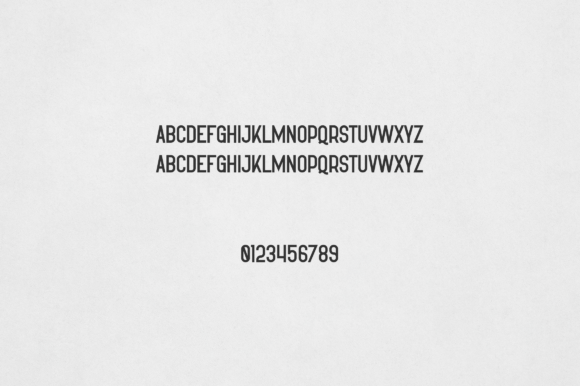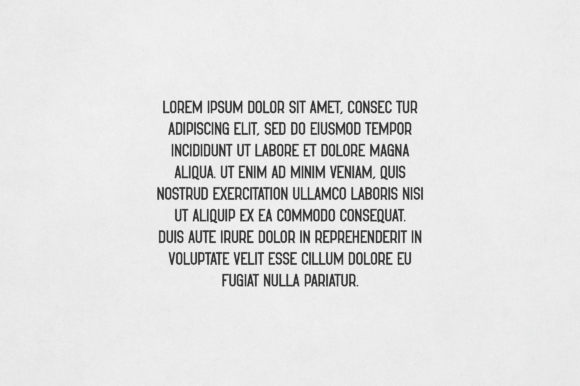
Introduction to Miley Font
Have you ever been stuck in a creative rut, scrolling through your design resources, searching for that one font that makes your project truly pop? I know I have. It’s that moment when you’re staring at a blank canvas, and all you need is the right typography to bring your idea to life. For designers, finding the perfect font can be a game-changer, and that’s exactly what we’re about to explore with the enchanting Miley Font.
As a versatile and elegant sans serif font, Miley Font is the perfect design resource for any creative project. Whether you’re working on branding, home-ware designs, product packaging, or magazine headers, this font is sure to make your typography truly unique. With its high quality and transparent background, Miley Font is a valuable addition to any designer’s toolkit.
Miley Font
- High-quality design resource ideal for creative projects, offering a modern and elegant aesthetic.
- Unique characteristics include a distinctive blend of classic and modern elements, making it a standout choice for creative projects.
Honest Review: Miley Font
As a designer, I’m always on the lookout for high-quality design resources that can elevate my creative projects. The Miley Font caught my attention, and I decided to give it a try.
What works well: ✨ The Miley Font has a unique and playful style that’s perfect for creative projects that need a bit of personality. The font is highly legible, even at small sizes, and the transparent background makes it easy to use on any background.
- High-quality design with a unique style
However, there are a few limitations: ⚠️ The font only comes in a limited number of weights, which might not be ideal for designers who need a wide range of styles. Additionally, the font might not be suitable for formal or professional projects, as its playful style might not be taken seriously.
Overall, I think the Miley Font is a great resource for designers who need a fun and creative font for their projects. While it has some limitations, its unique style and high-quality design make it a great addition to any designer’s toolkit.
Miley Font is a high-quality, free design resource ideal for creative projects that require a unique and stylish touch. With its transparent background, this font is perfect for designers looking to add a pop of color to their work.
Use Miley Font to add a pop of color to your designs.
Combine Miley Font with other design elements to create a unique look.
Common Use Cases for Miley Font
Miley Font is perfect for:
Designing social media graphics.
Creating flyers and posters.
Developing branding materials.
Alternatives to Miley Font
The Great Vibes Font is a creative and elegant script font perfect for design projects that require a touch of sophistication. It’s ideal for wedding invitations, branding materials, and other design resources where a high-quality font is needed. With its transparent background and free download option, it’s a great alternative to Miley Font for designers.
Comparison to Miley Font: Great Vibes Font has a more refined and classic look, making it suitable for formal events and corporate designs. Miley Font, on the other hand, has a bolder and more playful feel.